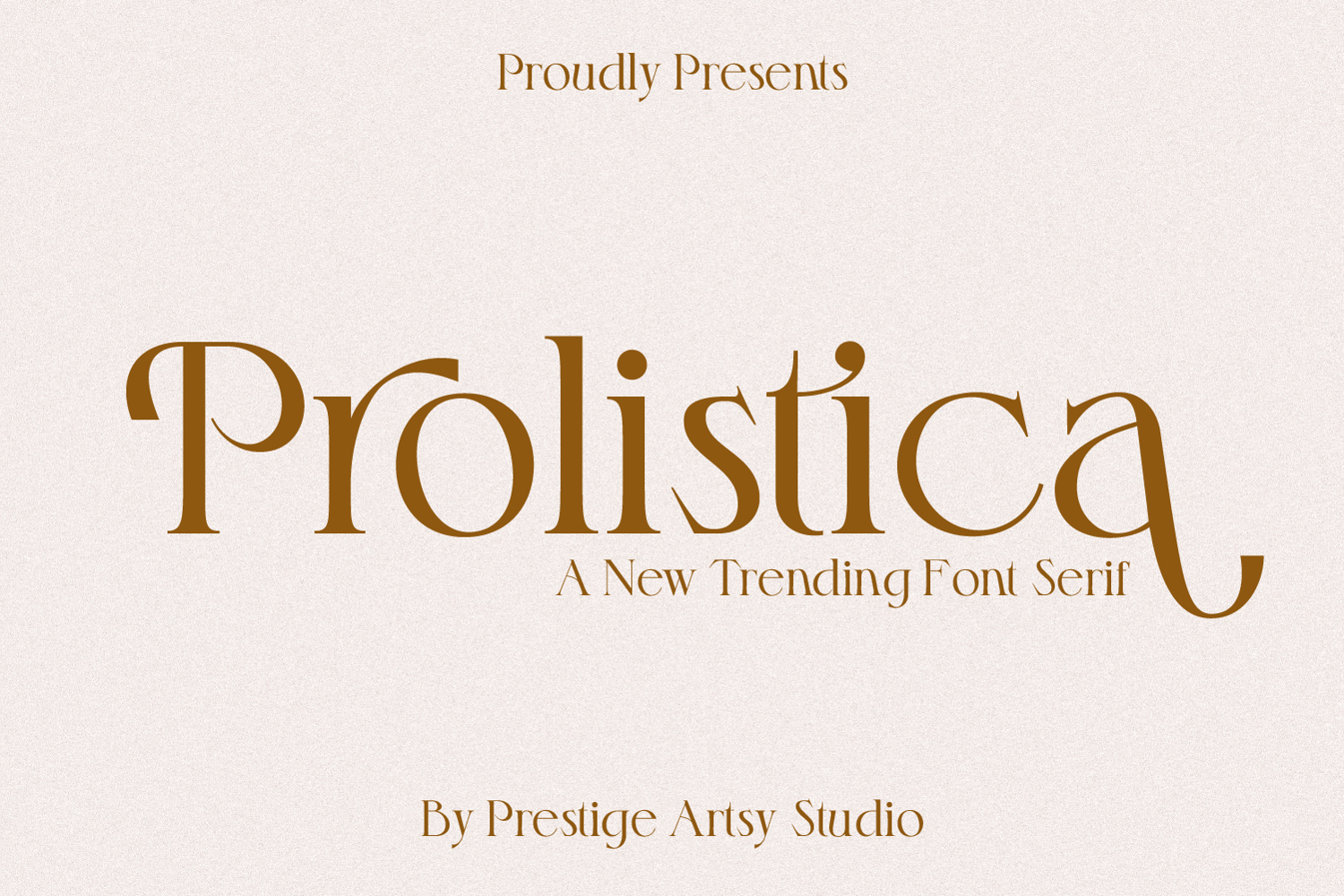
Prolistica Serif
Prolistica — A Powerful New-Gen Serif Font: Bold. Elegant. Unapologetically Modern.
Meet Prolistica, a sharp, confident serif font designed to make an impact. With timeless elegance and a fashion-forward edge, Prolistica is the serif you’ve been waiting for — the kind that commands attention and elevates everything it touches.
Crafted for branding, high-end editorials, logos, and statement designs, Prolistica blends bold structure with refined details. It’s more than a font — it’s a movement in modern typography.
✦ Features:
• Elegant stylistic alternates for added sophistication
• Full set of uppercase & lowercase letters
• Numbers, punctuation, and multilingual support included
Whether you're designing for fashion, beauty, art, or bold editorial layouts, Prolistica brings power and finesse in every letter.
Make a statement. Set the tone. Prolistica is the serif that defines what’s next.